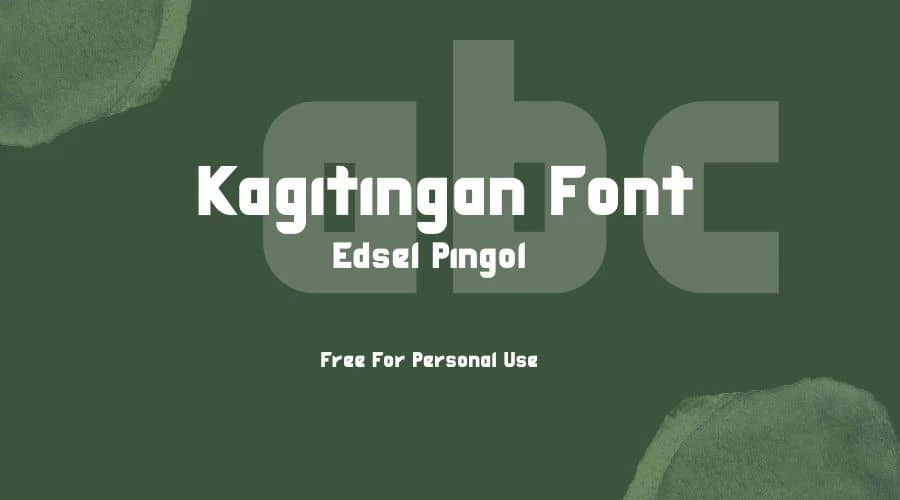
Kagitingan Font is inspired by “Araw ng Kagitingan” or “Day of Valor”, a Philippine national holiday. It is a day that commemorates the fall of Bataan during World War II. It is one of the most attractive and elegant Filipino Fonts.
The strokes of Kagitingan Font take inspiration from the strength of the Narra tree and the tight weave of a banig (a woven mat locally produced in the Philippines), an ode to the strong bond and connection of Filipinos especially in times of hardship. Dedicated to the frontliners during the pandemic, this font was made to commemorate the fighting spirit of Filipinos.
Since it is intense and capitalized by its tendency, it is better not to utilize it as an ordinary textual style. Yet, in the event that you are pondering marking, this text style is valuable for you.
Ans: Created by Edsel Pingol, the Kagitingan font, which in English translates to “valor,” is a reflection of the strength of Filipinos. especially during the COVID-19 pandemic.